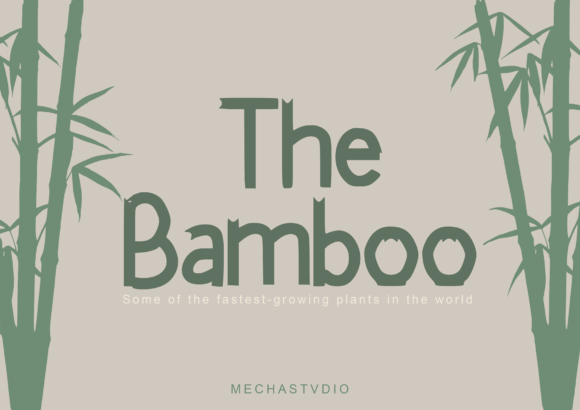
Introduction to Runcing Font
Runcing is a playful, bold, and unique display font mixed with a sans serif font.
Perfect for logos, branding, stationery, poster designs, social media posts, and more Add it to your fonts library, and it will become your favorite in no time at all.
Runcing Font offers exceptional quality and versatility, making it a valuable addition to your design toolkit. Whether you’re creating for personal projects or commercial use, Runcing Font delivers professional results.